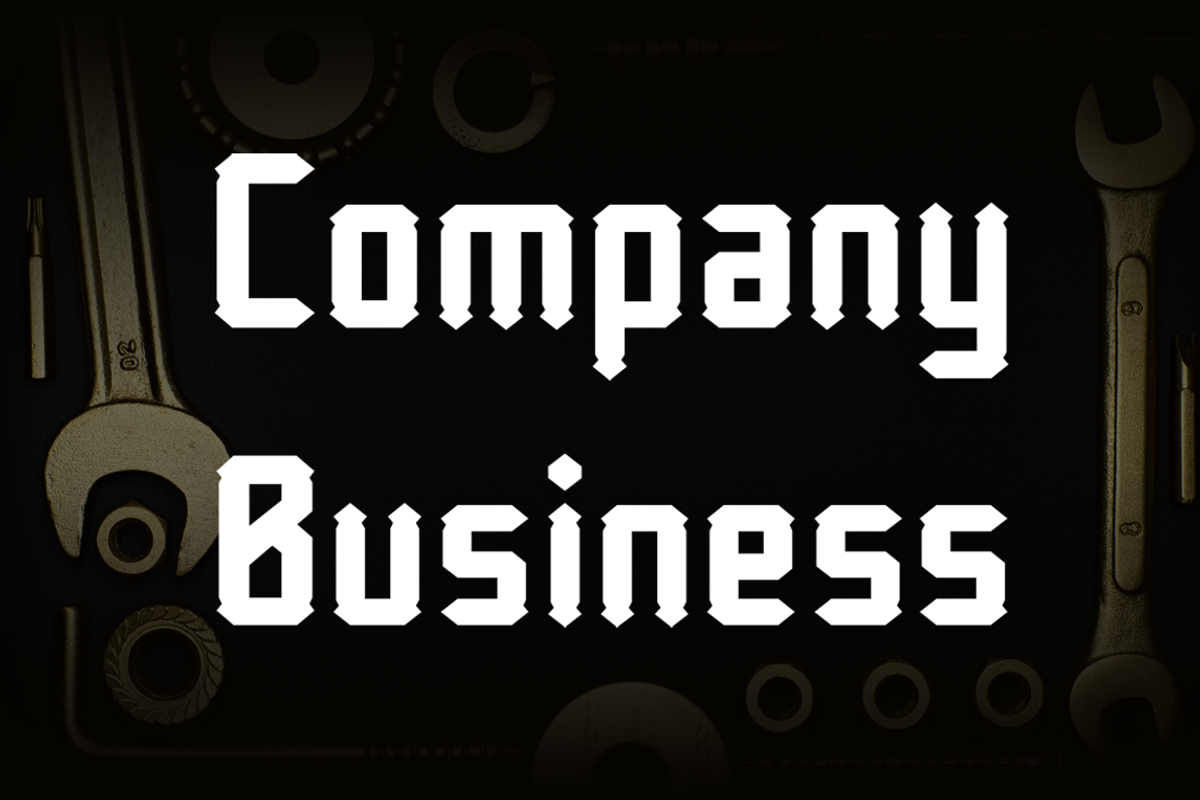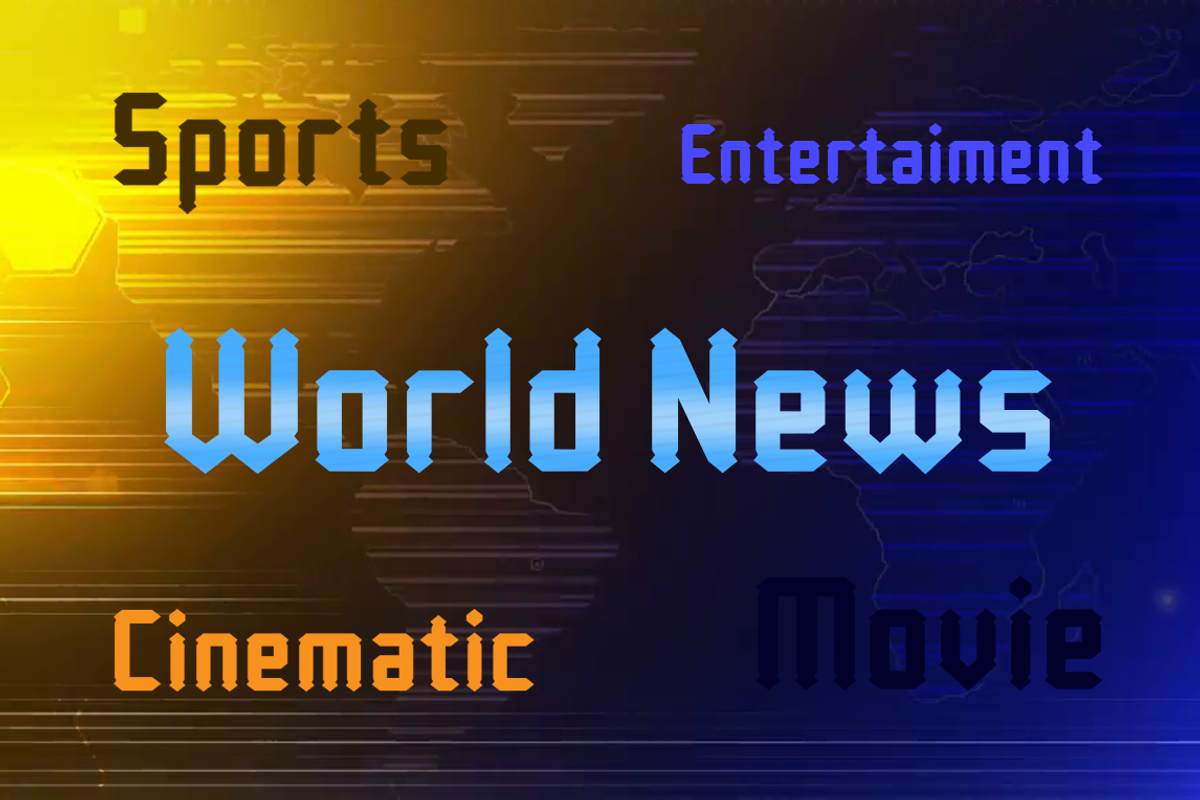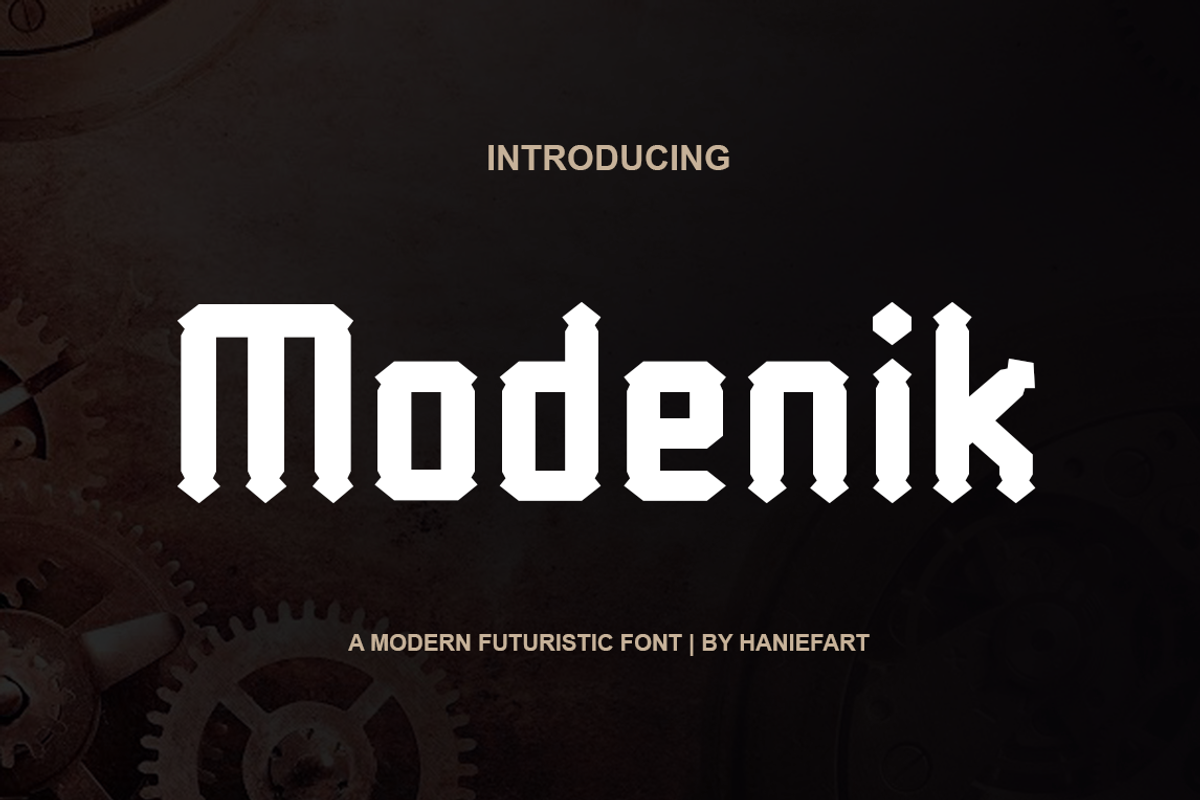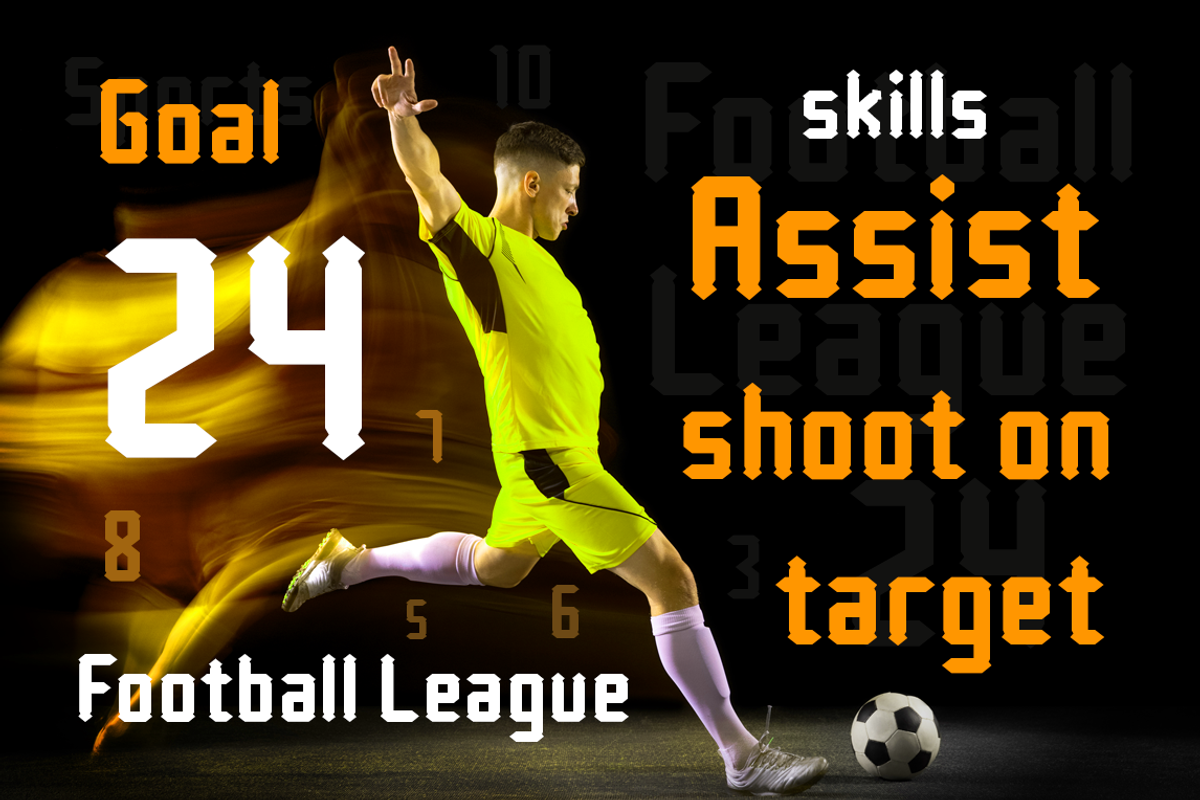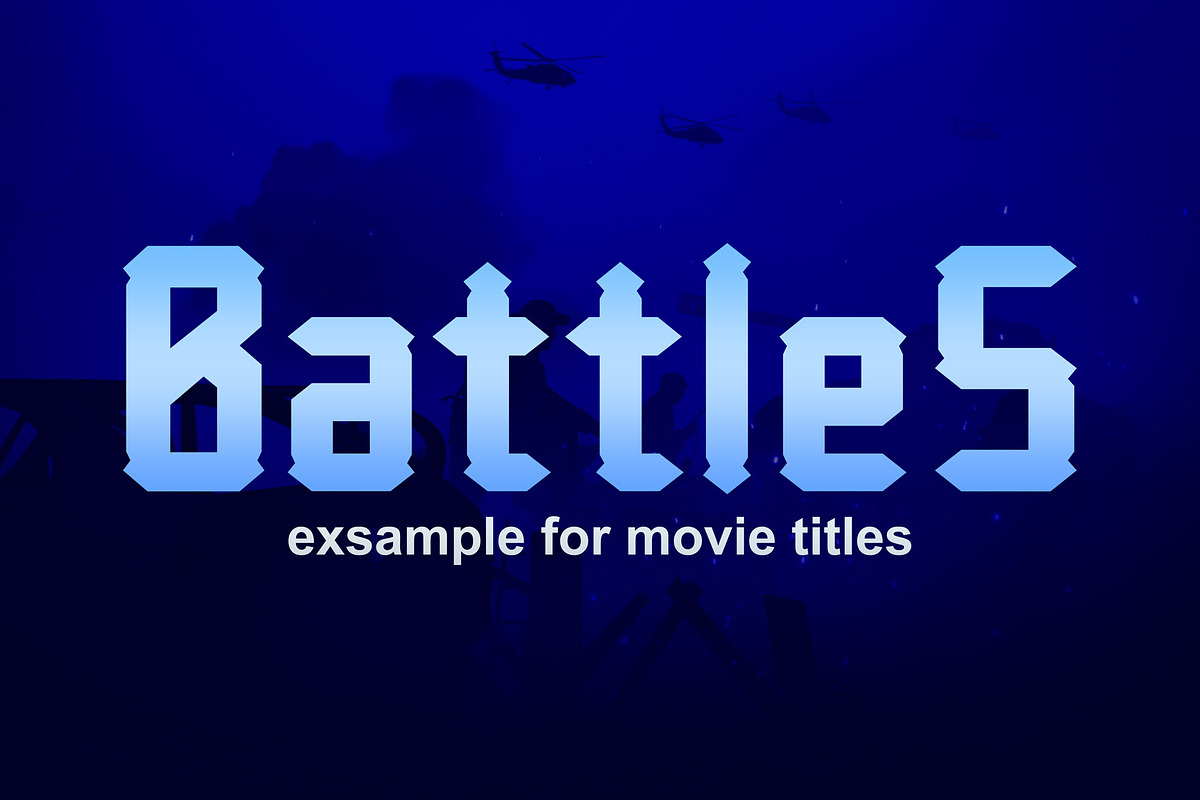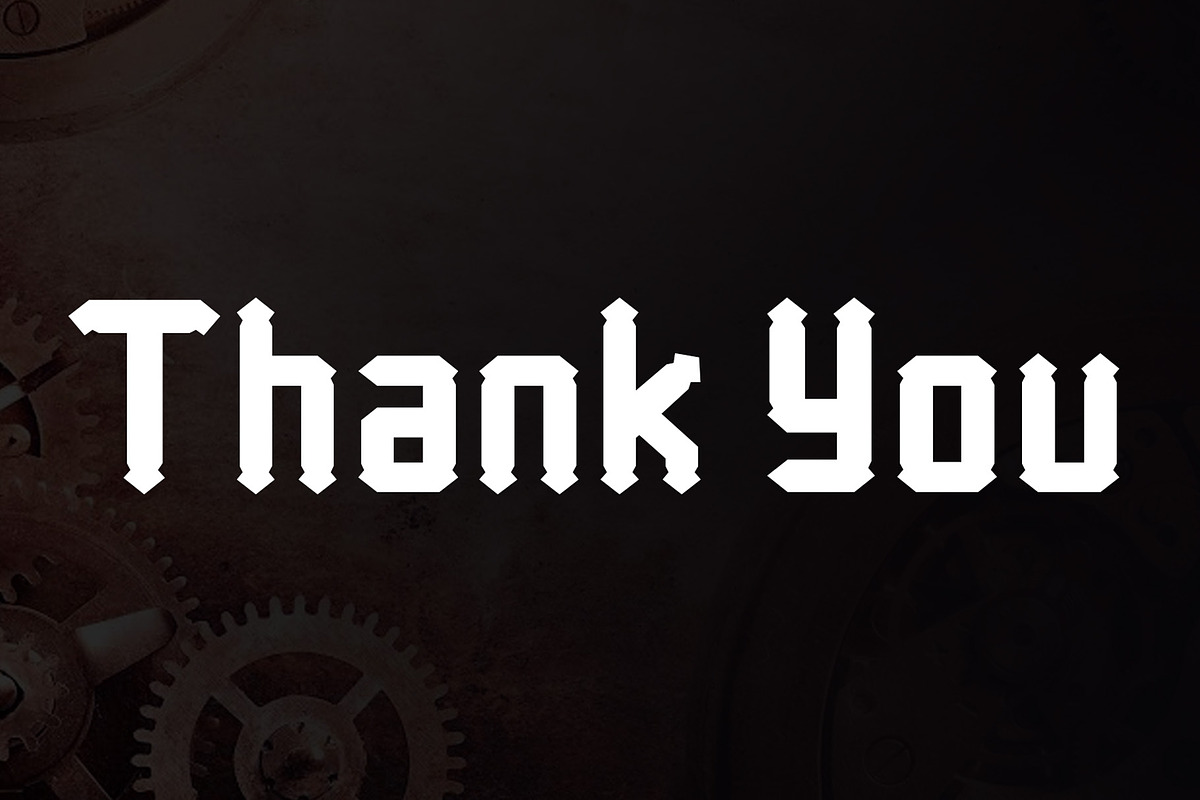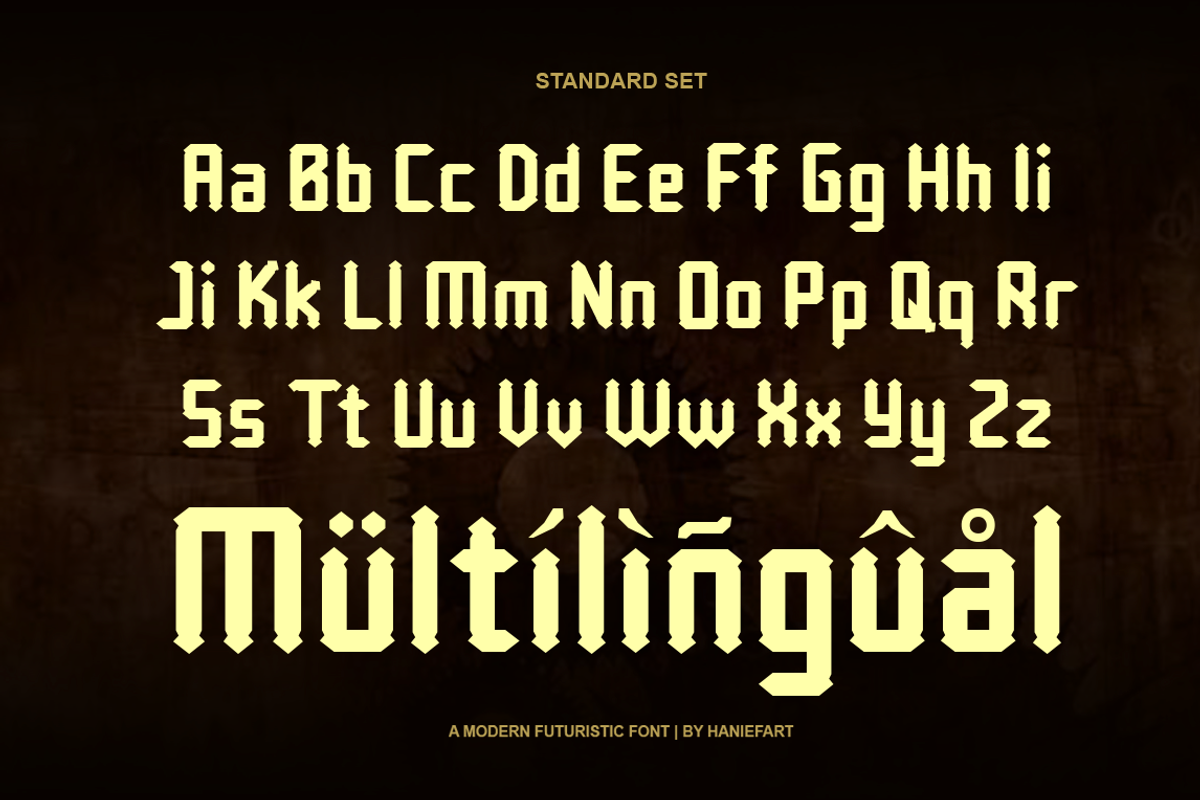
Modenik - Modern Futuristic Font
Modenik is a sleek and contemporary sans-display typeface that exudes modernity and sophistication. With clean lines and balanced proportions, it offers versatility for various design projects. Perfect for branding, editorial layouts, websites, and any application where a clean and professional look is desired.